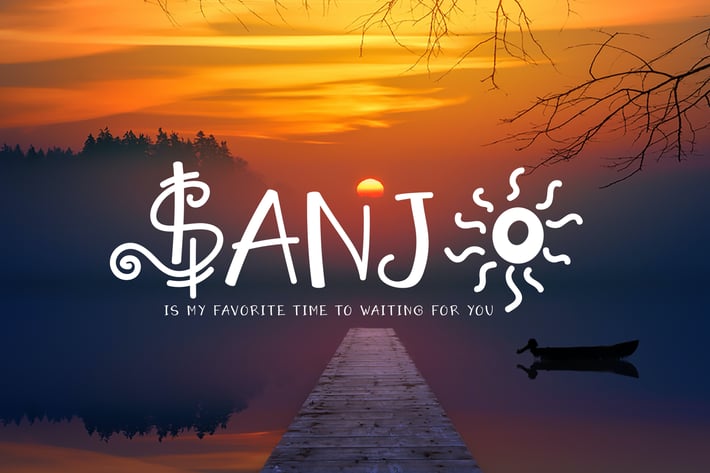
Sanjo Display Font
Sanjo is Display Font. Made by handwritten, do with love and has some alternate that you will love to use. This font is perfect for making your set of apparel, valentine, T-shirt, Hoodie, quotes, product packaging, brand, blog posts, greeting cards, labels, posters, wall art, etc